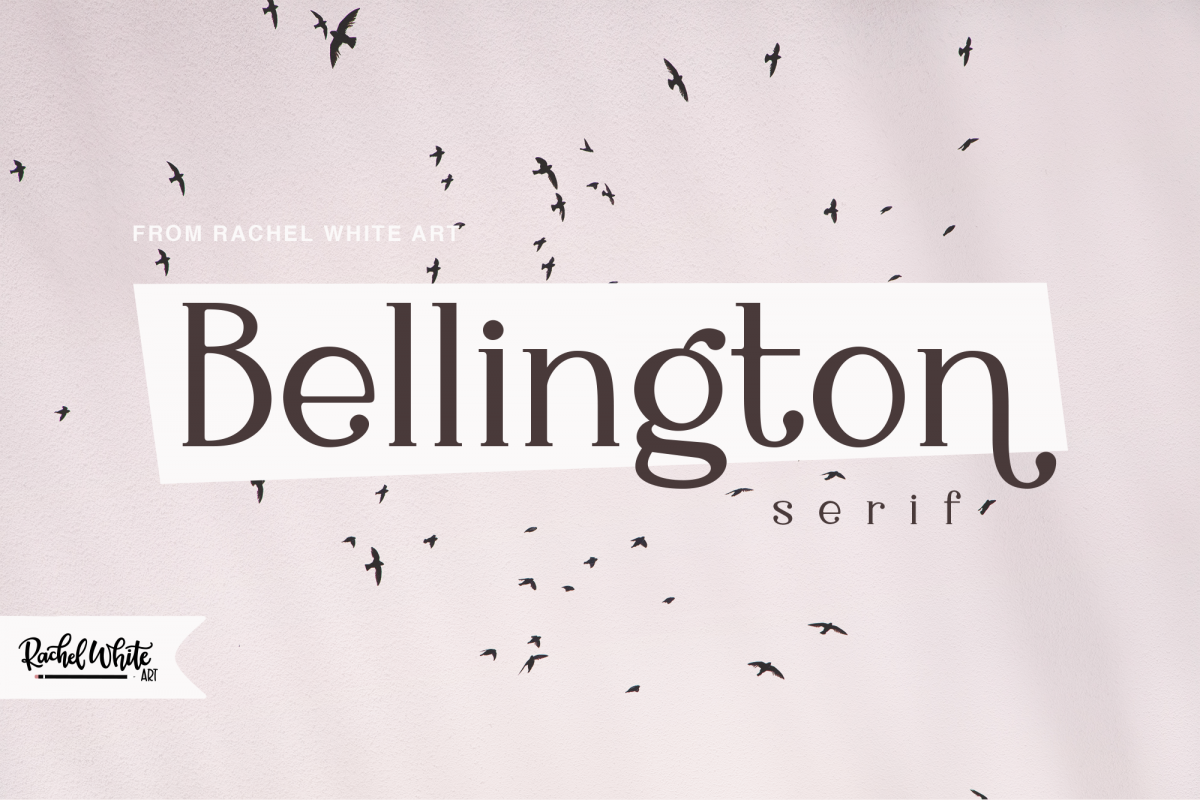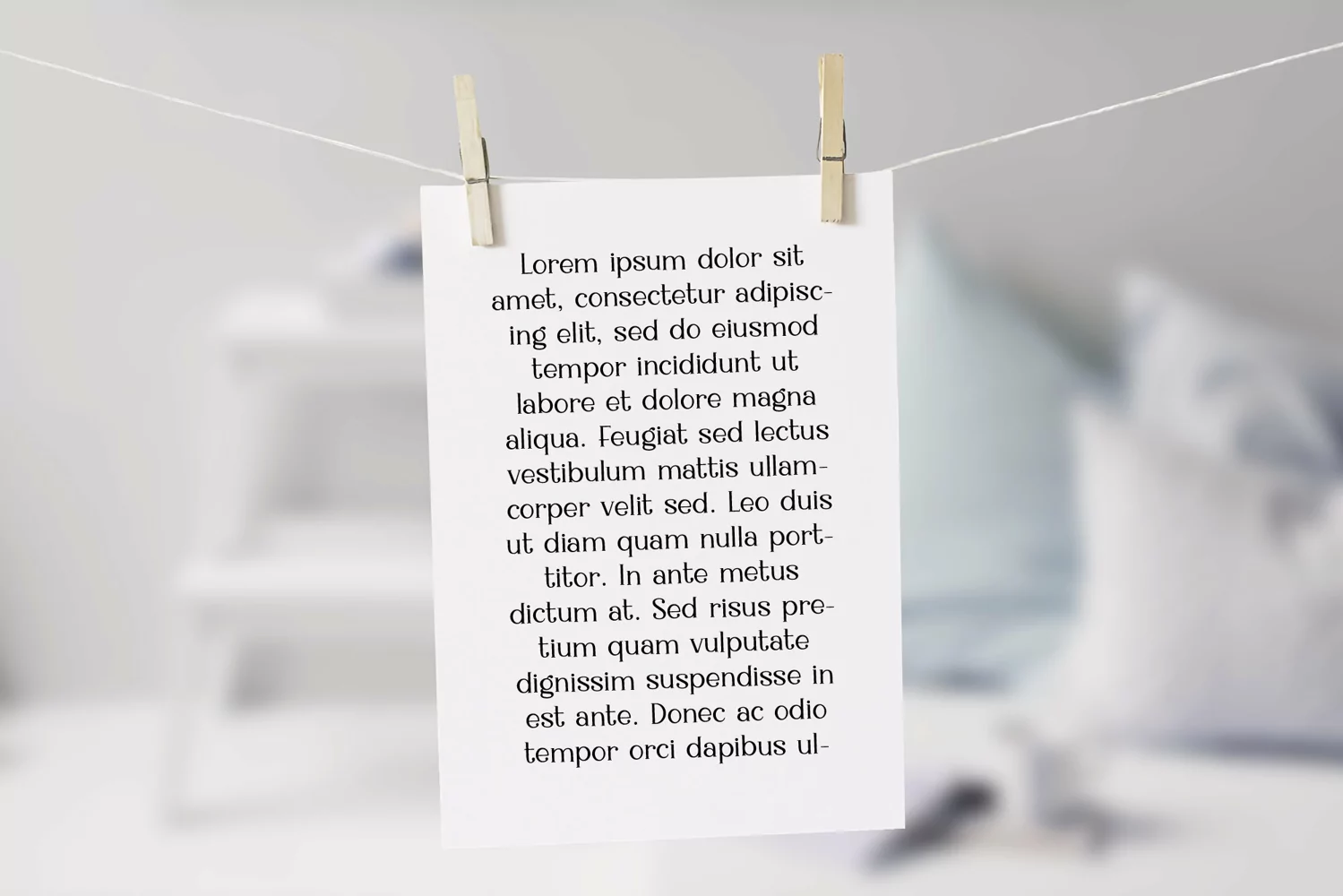
Bellington is a charming serif font. I combined all my favorite serif things - like very round bowls, big drop terminals, tall x heights - and created a font that I absolutely adore. It's even got some alternates that dip below the baseline to add an extra burst of charm (d, h, m, n).Includes multi-lingual characters.